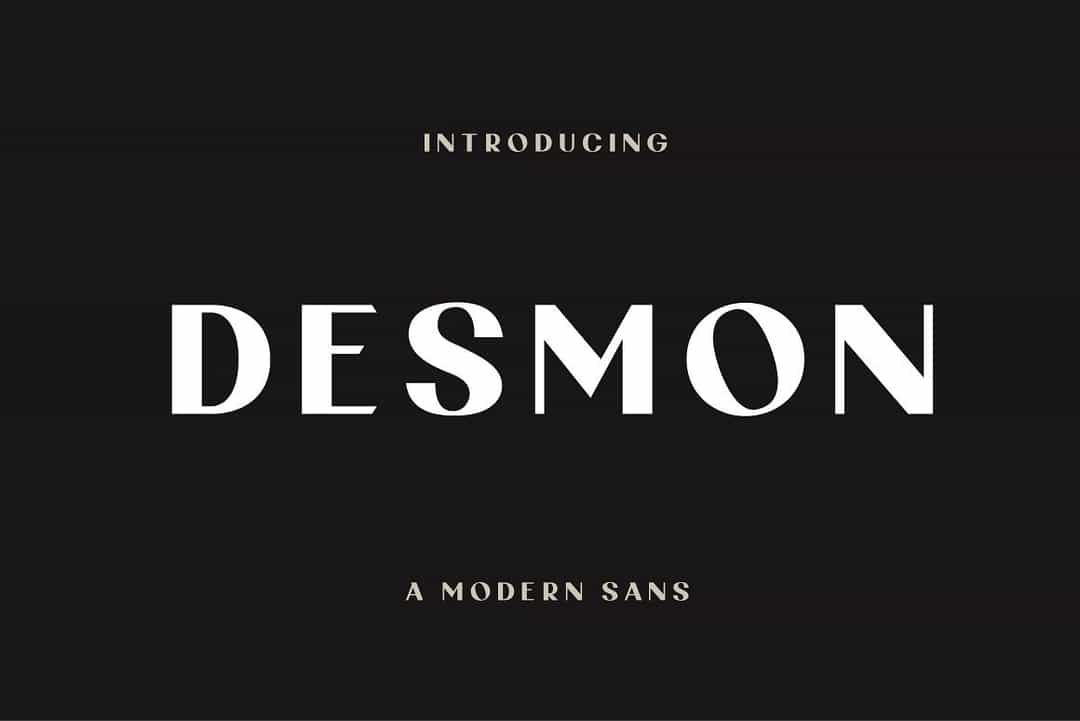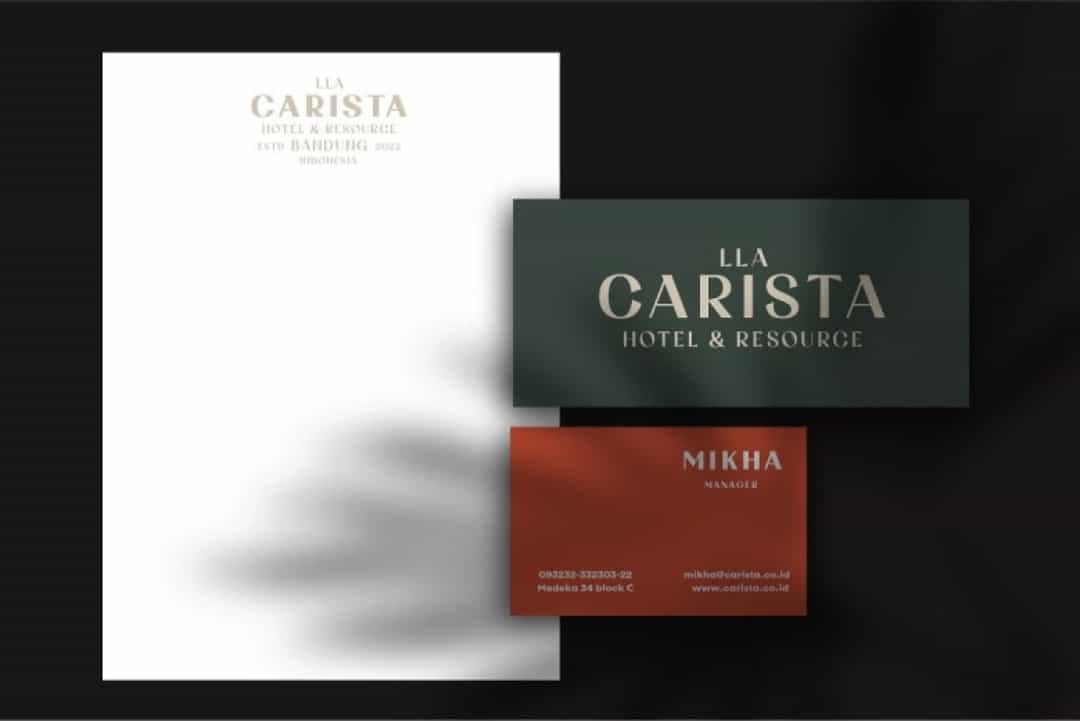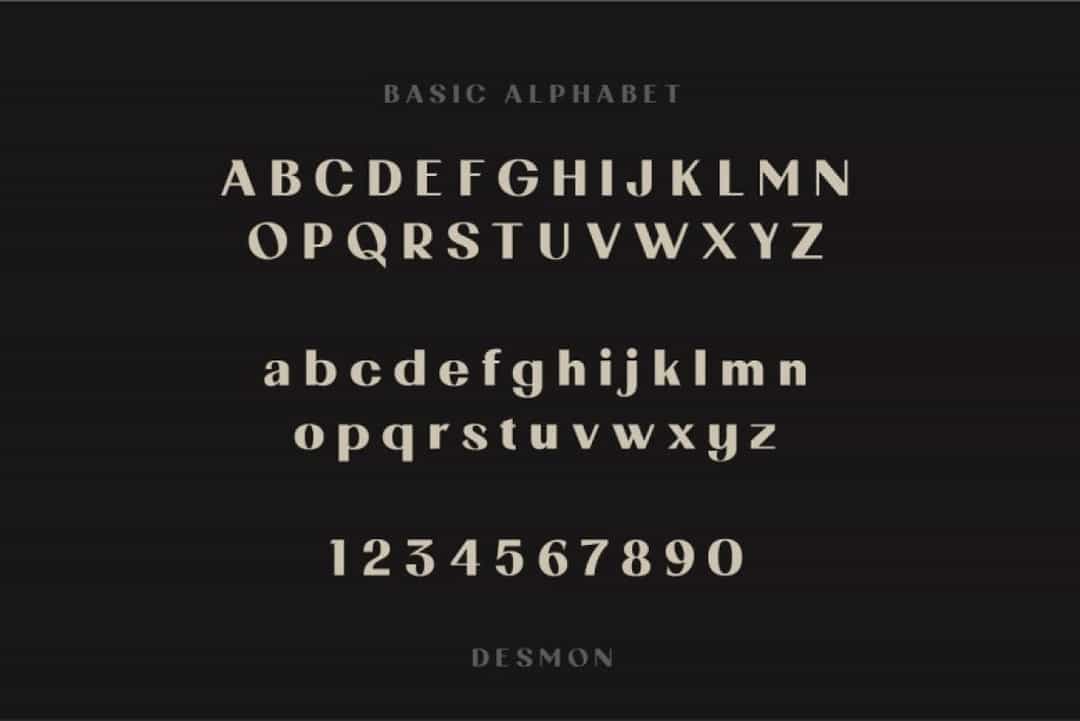
Discover Desmon Font, part of the Sans Serif collection—a versatile and unique font perfect for adding a personal touch to your projects. Download it for free and enjoy crafting designs with style, from invitations to social media posts. This font is available exclusively for personal use, giving you the freedom to create without limits. Unlock your creativity with Desmon Font today!
Desmon Modern Sans is a stylish and exclusive font perfect for branding with high-end fashion films, cinematic videos, social media titles, and other innovative designs! What sets this typeface apart is that it’s simple yet sophisticated – ideal for branding high fashion films, cinematic videos and social media titles as well as designs!